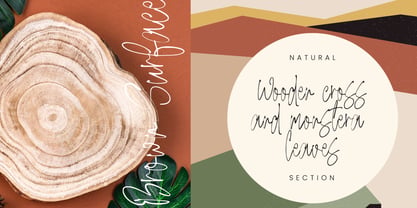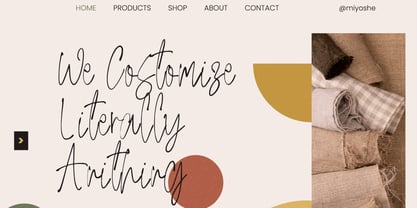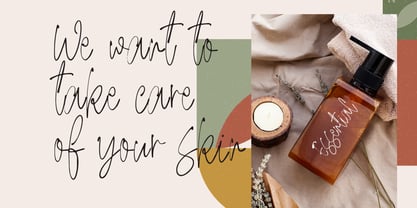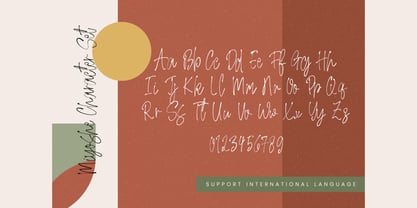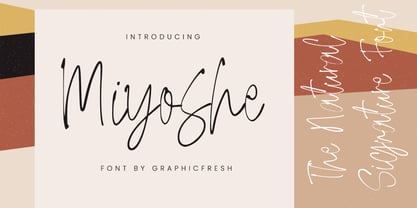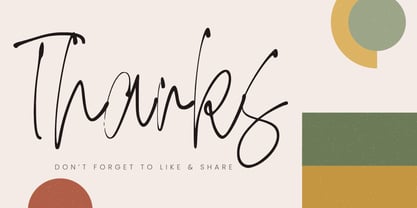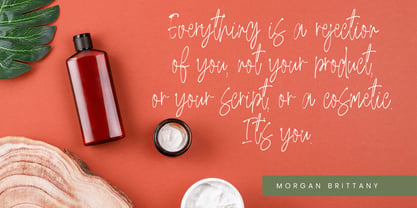
Miyoshe
par Graphicfresh
La famille de polices Miyoshe a été conçue par Muhammad Husni Haikal et publiée par Graphicfresh. Miyoshe contient 1 styles. En savoir plus sur cette famille
Misyohe is a natural and elegant signature font inspired by real handwritten signatures. It features smooth curves, flowing strokes, and a refined handwritten character that feels personal, stylish, and authentic. Designed to look effortless yet classy, Misyohe is perfect for branding, logos, photography watermarks, fashion labels, social media, invitations, and personal projects. Its natural handwriting style adds a sense of confidence and individuality, making every word feel exclusive and timeless. Whether you’re building a modern brand or adding a personal touch to your design, Misyohe delivers a clean, graceful, and natural signature look.
Concepteurs: Muhammad Husni Haikal
Fonderie: Graphicfresh